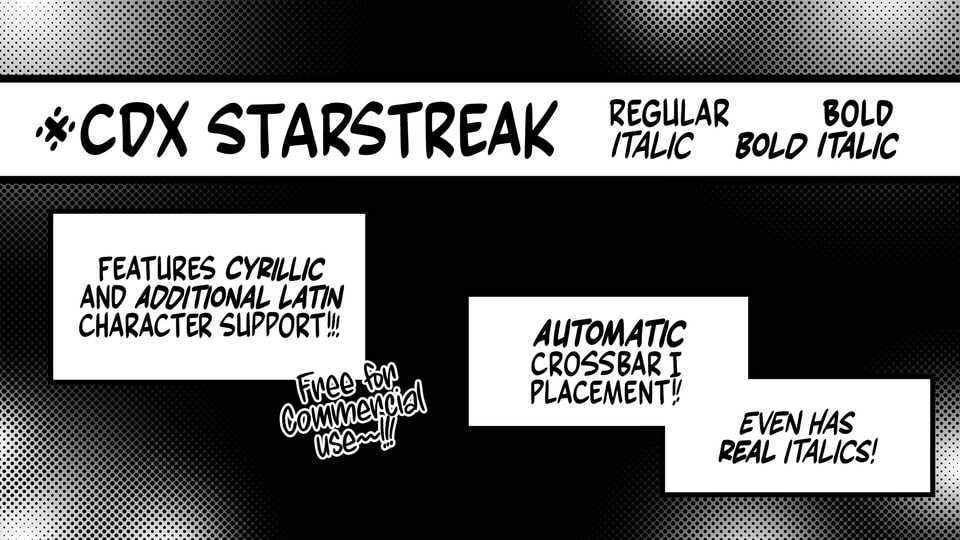
Download CDX Starstreak font, a comic typeface that can be used for speech bubbles or narration. Supports additional Latin and basic Cyrillic scripts. Comes in four styles.